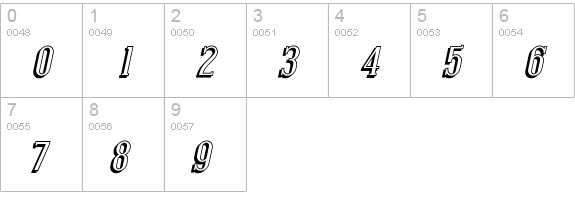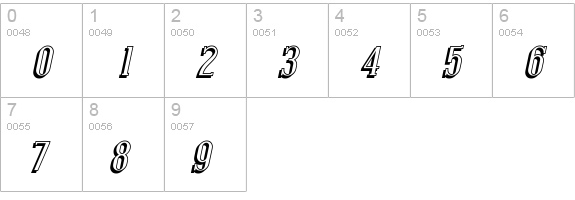
Covington SC Shadow Italic is a distinctive, italic variant in the Covington typeface family \xE2\x80\x94 well suited to design and typography projects.
Covington SC Shadow Italic font is a stunning and elegant typeface that exudes sophistication and style. Its sleek and modern design is perfect for adding a touch of class to any project. The italicized style of the font adds a subtle sense of movement and flair, making it ideal for creating eye-catching headings or stylish branding. What sets Covington SC Shadow Italic font apart is not just its beauty, but also the fact that it is completely free to download. Yes, you read that right - this high-quality font is freely available for download at FontsMarket.com. So whether you're a designer looking to elevate your designs or a business owner in need of a fresh new look for your branding, Covington SC Shadow Italic font is the perfect choice. Download it now and see the difference it can make in your projects!